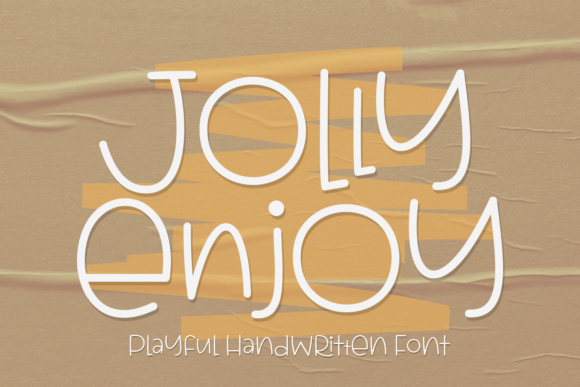
Unleash the Joy of Expression with Jolly Enjoy Font - A Playful Handwritten Script for Captivating Creations
In the realm of typography, Jolly Enjoy Font emerges as a radiant beacon of cheerfulness, exuding an infectious positivity that enchants the written word. Its playful nature, embodied in its soft curves and gentle strokes, invites you to embark on a whimsical journey where creativity flourishes.
Crafted with meticulous attention to detail, Jolly Enjoy is a script font that radiates warmth and approachability. Each letter dances across the page, as if guided by an invisible hand that weaves tales of joy and merriments. Its enchanting style is reminiscent of childhood dreams and carefree adventures, making it an ideal choice for children's books, invitations, and social media graphics.
Immerse yourself in the world of Jolly Enjoy, where words transform into vibrant expressions of art. Its playful personality adds a touch of whimsy to any project, evoking a sense of wonder and delight. Whether you're designing a book cover, creating eye-catching posters, or crafting personalized greeting cards, Jolly Enjoy serves as the perfect tool to bring your creative visions to life.
Let Jolly Enjoy be your companion in the realm of storytelling, guiding you through enchanted forests, magical kingdoms, and worlds where dreams take flight. Its versatility extends beyond children's literature, as it lends its charm to invitations, branding materials, and social media posts. With Jolly Enjoy, your words will resonate with a joyful spirit, leaving an indelible mark on the hearts of your audience.
Embrace the magic of Jolly Enjoy Font today and unlock a world where creativity knows no bounds. Its playful essence will ignite your imagination, transforming ordinary words into extraordinary expressions of joy. Let Jolly Enjoy be your creative muse, guiding you towards captivating designs that radiate positivity and leave a lasting impression.